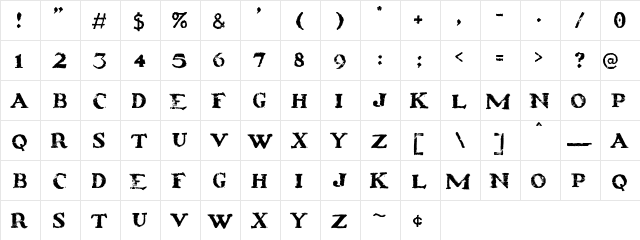
20th Century Woodcut Regular
Design Context for 20th Century Woodcut Typeface
20th Century Woodcut taps into classic Western woodtype traditions — bold, characterful, and impossible to ignore.
A natural fit for craft spirits, ranch branding, rodeo events, and Americana-inspired design work.
Font Pairing: Combine 20th Century Woodcut with a simple slab or neutral sans — period-accurate companions reinforce the vintage feel without competing for attention.
Pro Tip: Use 20th Century Woodcut for short, impactful bursts of text — it shines in poster headlines and product names rather than extended copy.